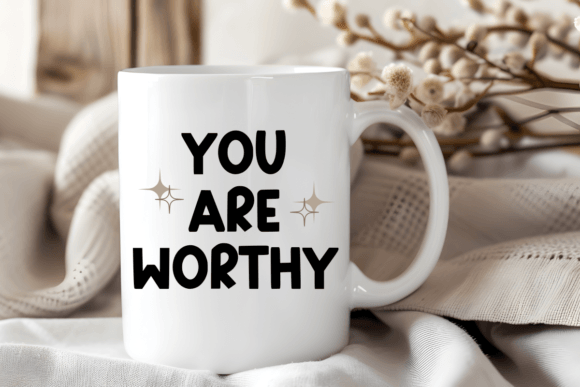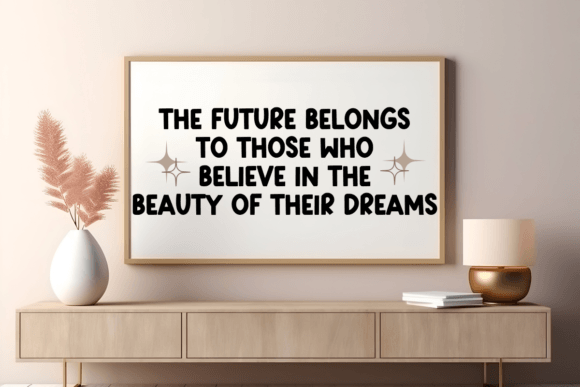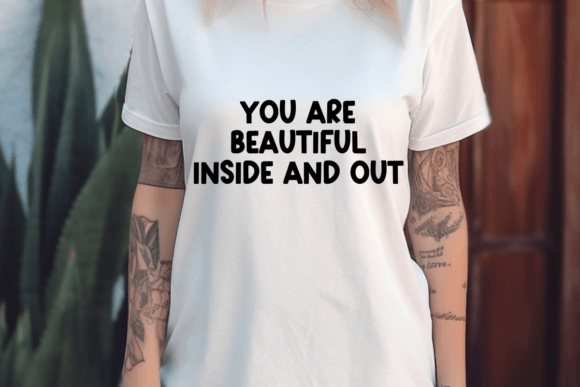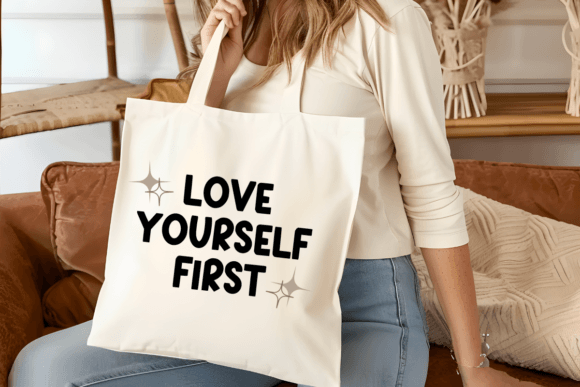
Introduction to Restful Light Font
Restful Light is a sweet and friendly display font.
Restful Light Font offers exceptional quality and versatility, making it a valuable addition to your design toolkit. Whether you’re creating for personal projects or commercial use, Restful Light Font delivers professional results.